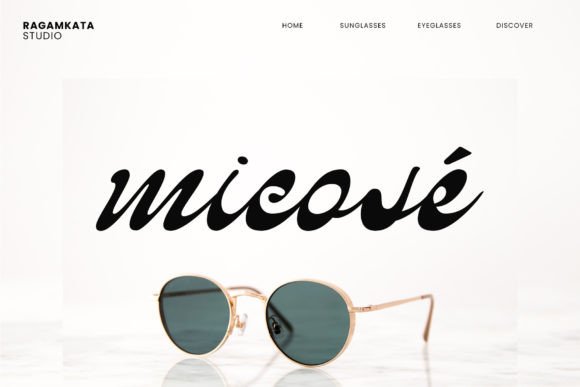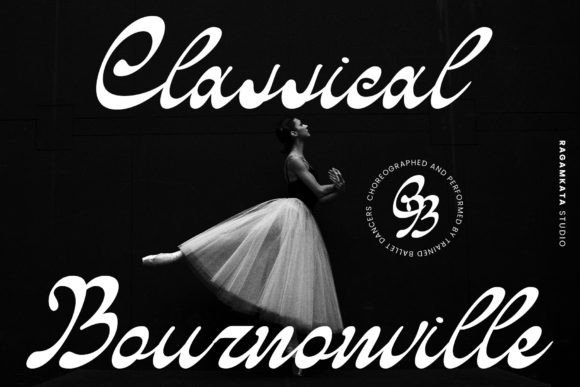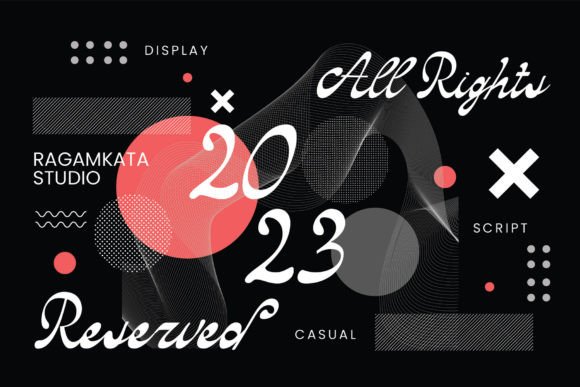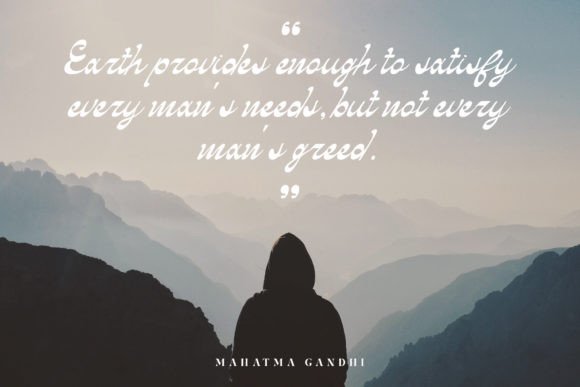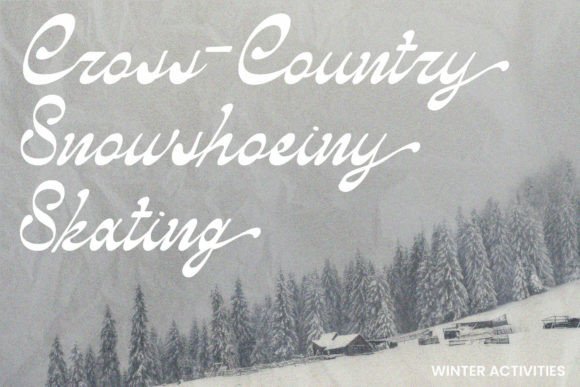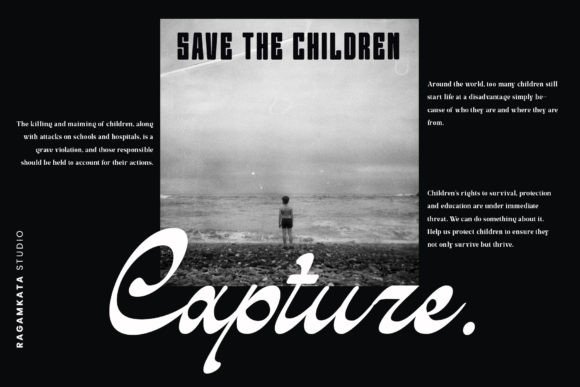
The Perfect Blend of Elegance and Modernity
Have you ever stared at a blank canvas, trying to find the perfect font to bring your design to life? We’ve all been there. The search for that elusive combination of style and legibility can be a daunting task. But what if I told you that there’s a font that checks all the right boxes?
Meet the Calimoe Font, a masterfully crafted script font that seamlessly blends elegance with a touch of modernity. This beautiful typeface is designed to be a perfect choice for designers seeking a stylish, clean, and display-worthy font for a variety of creative projects. Whether you’re working on a branding project or an editorial design, the Calimoe Font is sure to impress. Its high legibility and carefully crafted characters make it a valuable asset for any designer looking to elevate their work.
Calimoe Font Key Features
- Font Family: Calimoe
- Character Set: Supports a wide range of languages, including Latin, Cyrillic, and Greek scripts
- Unique Characteristics: Features a unique blend of modern and traditional design elements, with intricate details and ornate flourishes
Calimoe Font Review
As a designer, I recently had the opportunity to work with the Calimoe Font, and I must say, it’s a unique and intriguing choice. ✨
One of the things that works well with Calimoe is its versatility. It can be used for both display and body text, making it a great option for designers who need a font that can adapt to different contexts. The font’s organic, handwritten feel also adds a touch of warmth and personality to any design.
Another strength of Calimoe is its wide range of weights and styles. From the lightest to the boldest, the font’s variations offer a lot of flexibility and can be used to create visually interesting typography. ✨
- ⚠️ Limited legibility at small font sizes, which may make it challenging to use for body text in small contexts.
- ⚠️ Some characters, such as the letter “e”, may be difficult to read due to their unconventional design.
Overall, I would say that the Calimoe Font is a solid choice for designers who want to add a unique touch to their work. While it may have some limitations, its versatility and range of styles make it a great option for a variety of projects.
Getting the Most Out of Calimoe Font
To get the most out of the Calimoe Font, use it for creative and artistic purposes, such as:
– Designing invitations and event materials
– Creating posters and flyers
– Developing branding materials
– Adding a touch of elegance to your digital content
The Calimoe Font is ideal for use cases that require a unique and stylish font, such as:
– Luxury product branding
– Fashion and beauty marketing materials
– High-end event invitations
Alternatives to Calimoe Font
The Great Vibes Font is a beautiful, elegant script font ideal for creating a sense of sophistication and luxury. It is perfect for use in logos, branding, and high-end packaging design. Great Vibes Font is more elegant and refined compared to Calimoe Font, which has a more playful and casual feel.
The Pacifico Font is a modern script font that exudes a sense of relaxation and tranquility. It is perfect for use in travel, wellness, and lifestyle branding. Pacifico Font has a more laid-back feel compared to Calimoe Font, which has a bolder and more energetic vibe.
The Alex Brush Font is a beautiful, handwritten font that is perfect for creating a sense of warmth and personality. It is ideal for use in invitations, greeting cards, and other creative projects. Alex Brush Font is more personal and emotive compared to Calimoe Font, which has a more stylized and graphic feel.
The Dancing Script Font is a elegant, cursive font that is perfect for creating a sense of luxury and sophistication. It is ideal for use in high-end branding, packaging, and advertising design. Dancing Script Font is more refined and polished compared to Calimoe Font, which has a more playful and casual feel.
Can I customize the Calimoe Font to fit my brand’s unique style?